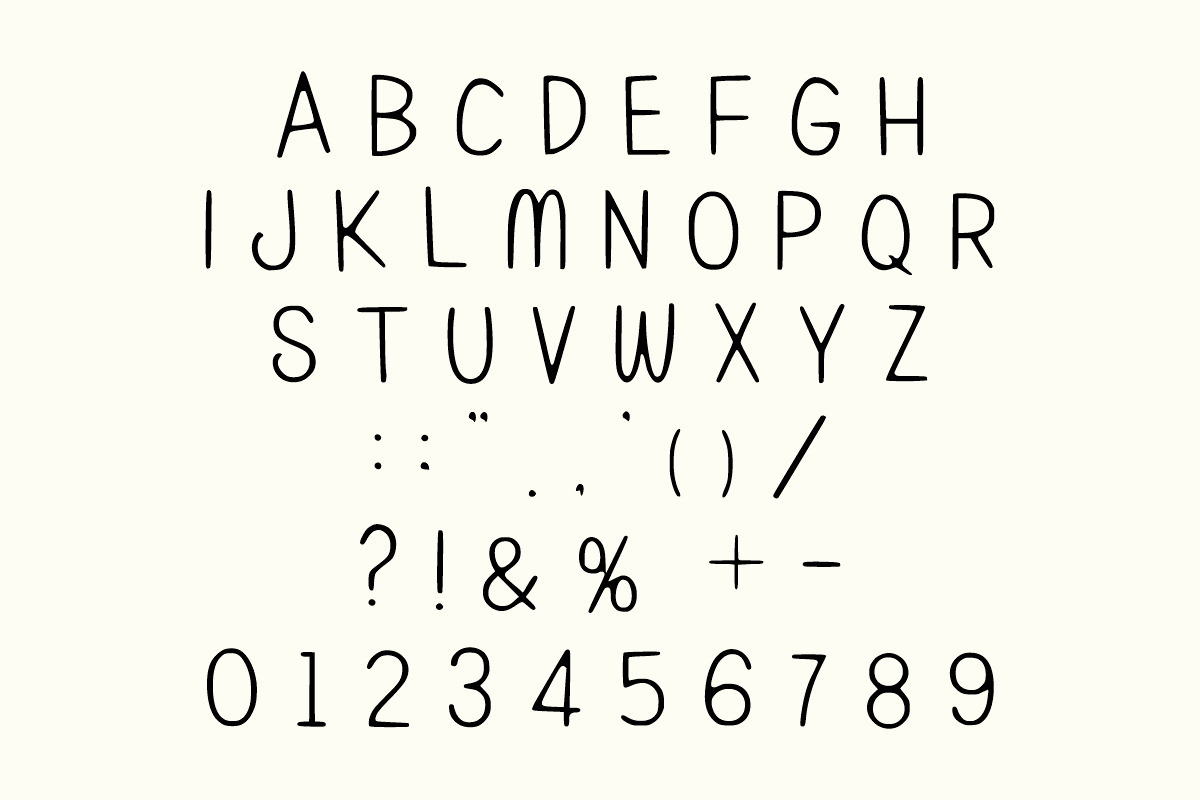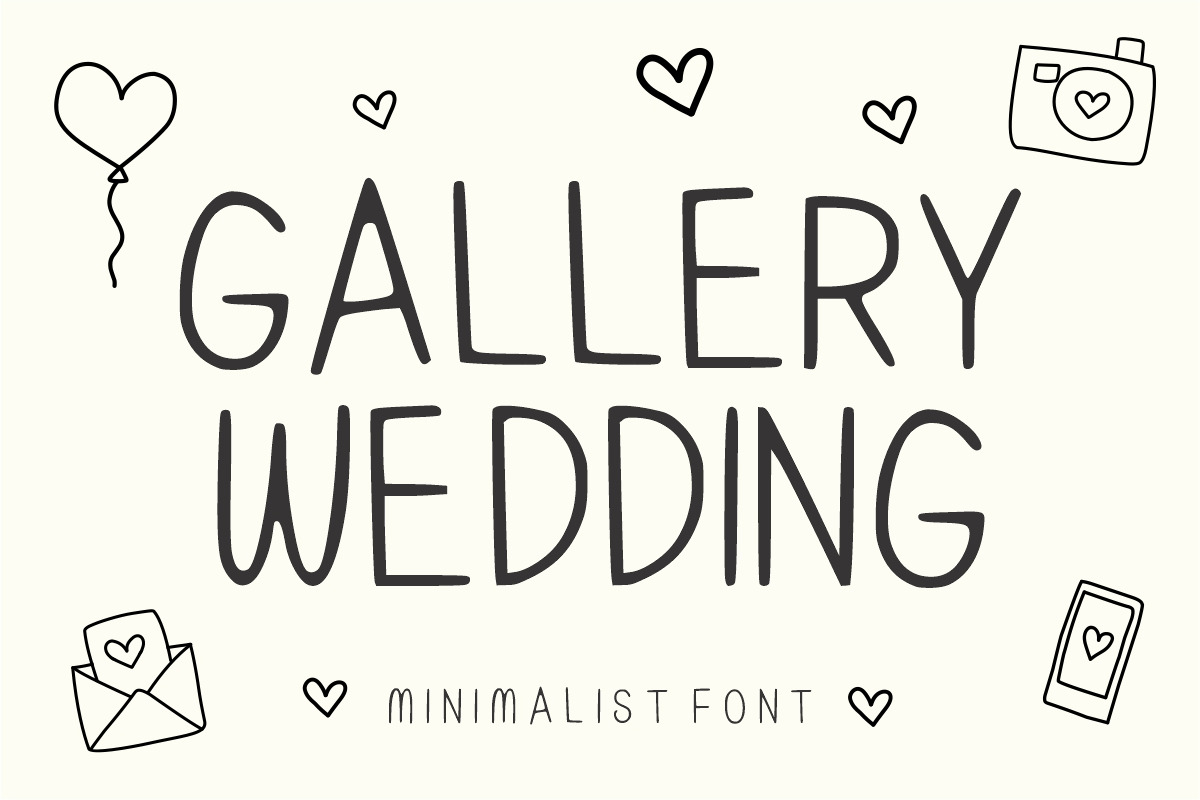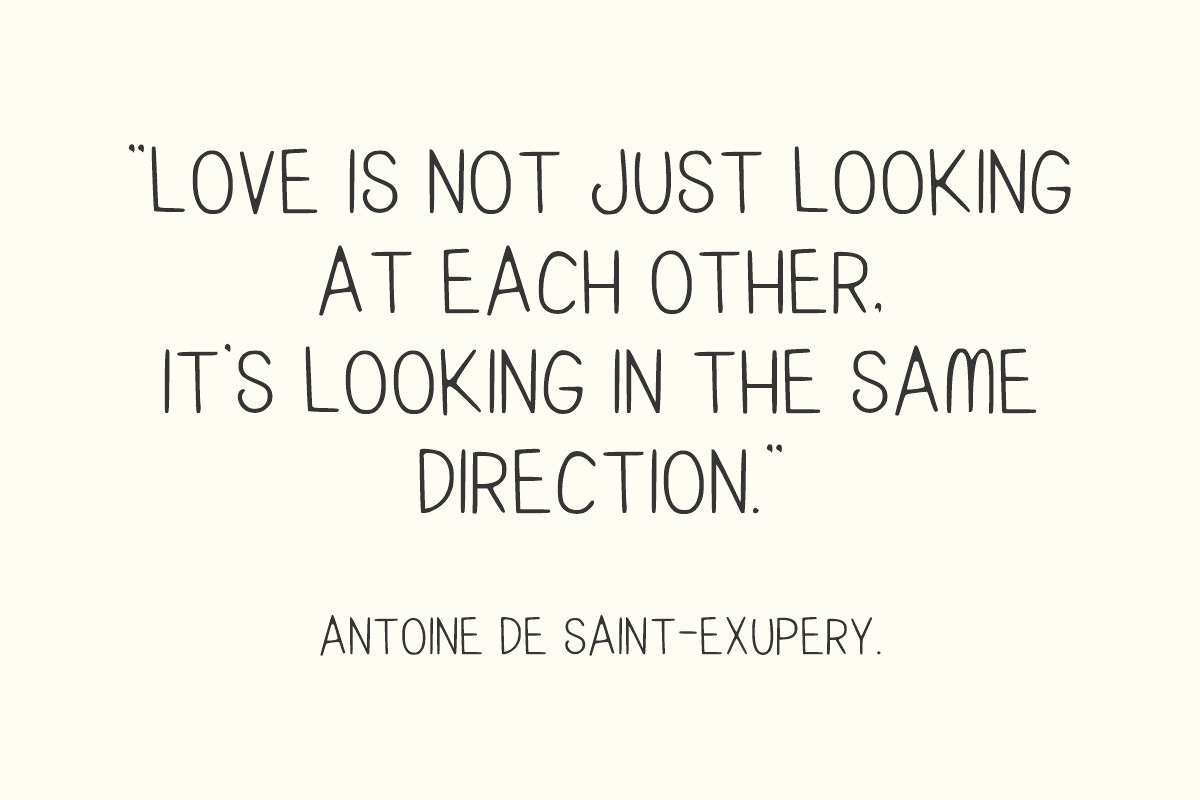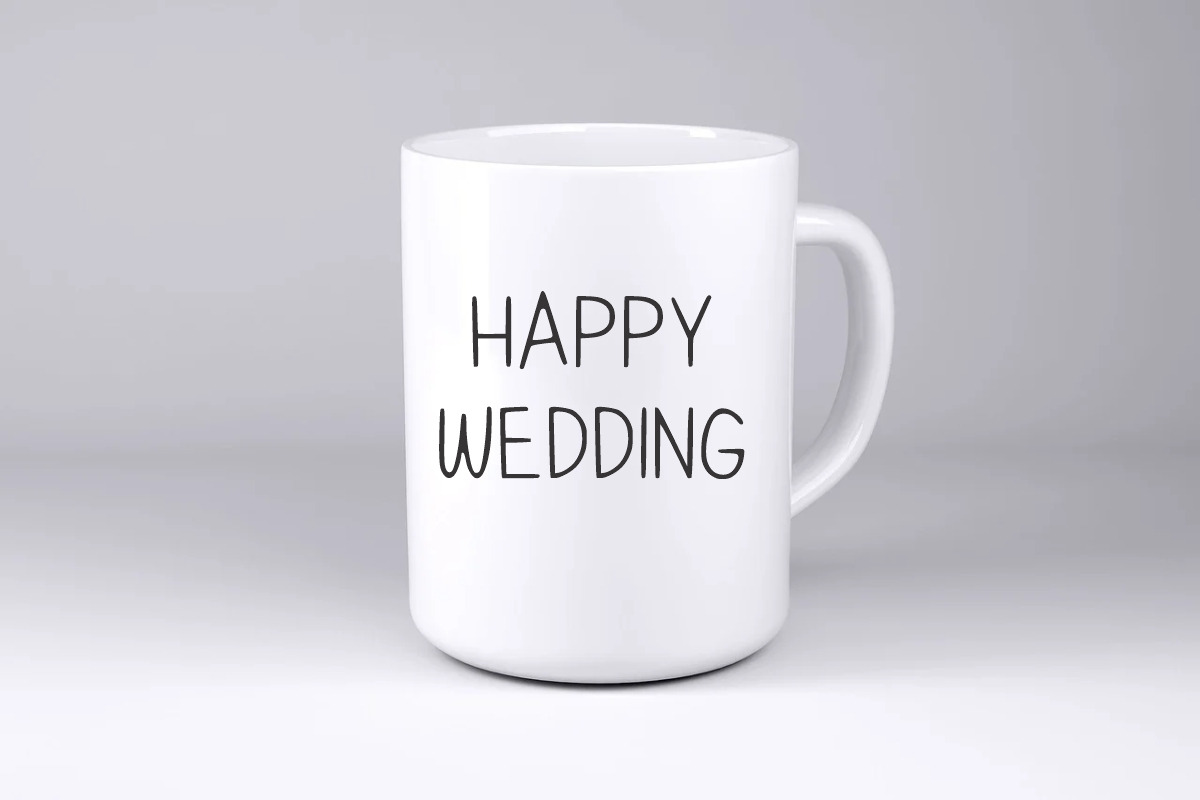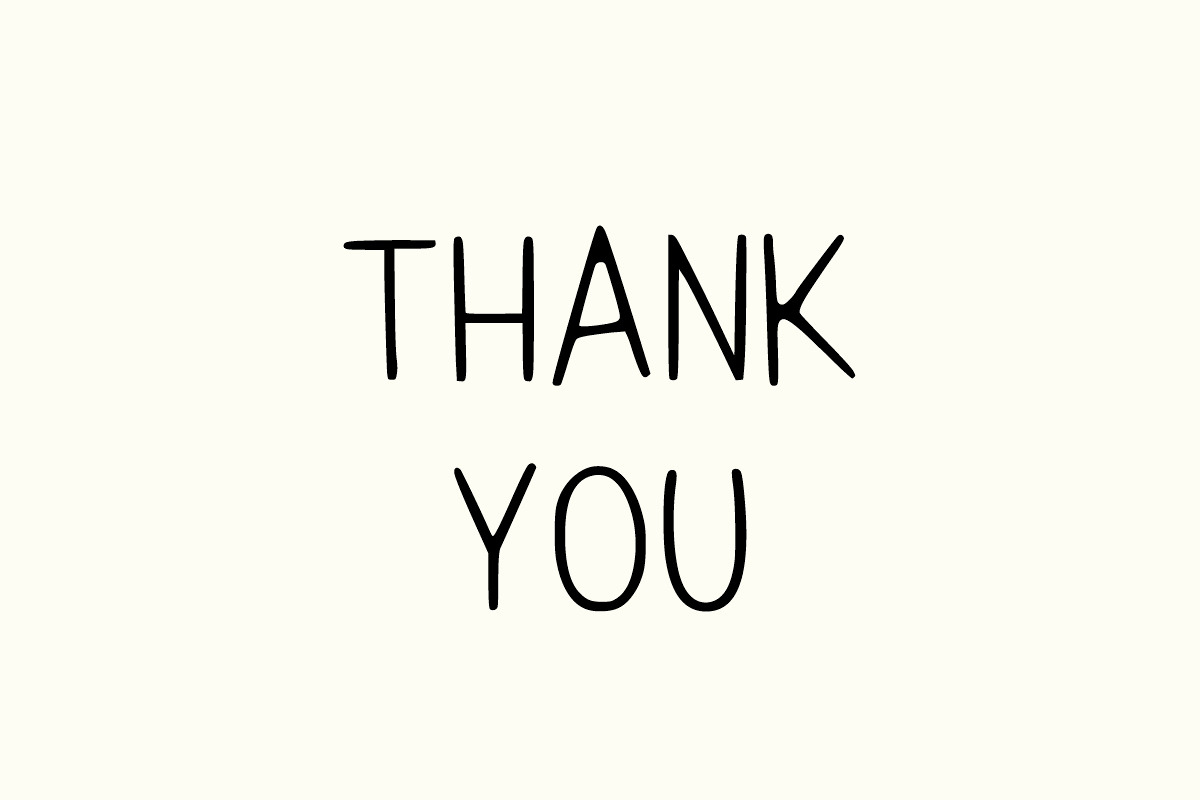
Gallery Wedding Handrawn font
Gallery Wedding, an epitome of charm and simplicity wrapped in a handwritten display all-caps font that radiates a friendly aura.
Graced with an informal style and a casual undertone, this font enhances your creations by adding a touch of relaxed brilliance. Effortlessly versatile, it nestles perfectly into various applications, from product packaging and formal invitations to soulful quotes and clothing labels. Be it vibrant posters or captivating logos, Gallery Wedding never fails to enrich your projects with its expressive charm.
This Gallery Wedding typeface features clean, monoline strokes and a slim silhouette that radiates a modern, “fine art” sensibility. It is the perfect companion for wedding invitations, photography watermarks, and boutique lifestyle branding. The Gallery Wedding font pairs beautifully with delicate leaf illustrations and soft, neutral color palettes to create a sophisticated, high-end look.
Use this Gallery Wedding typeface to add a personal, hand-drawn touch to digital signatures, event programs, and elegant product packaging. Its airy and lighthearted nature makes it an excellent choice for brands that value simplicity and intimate craftsmanship.